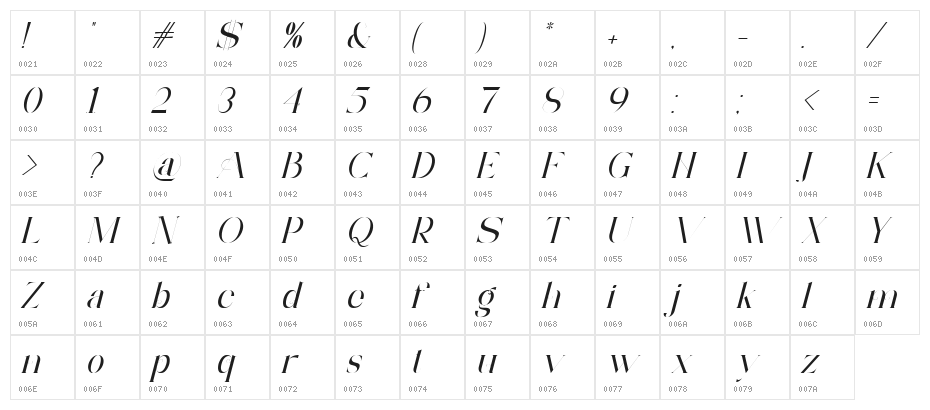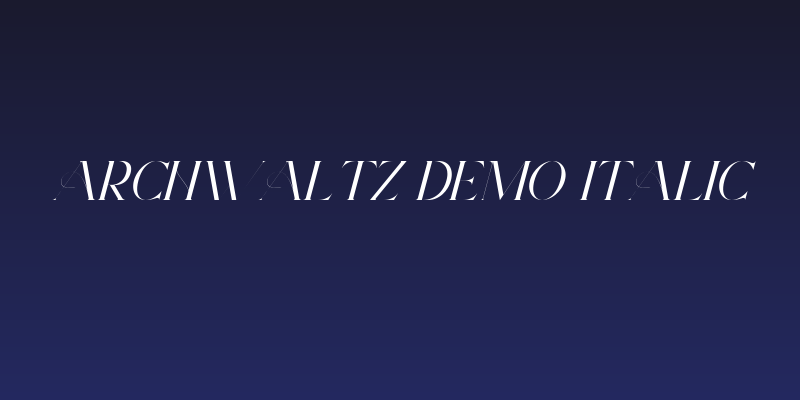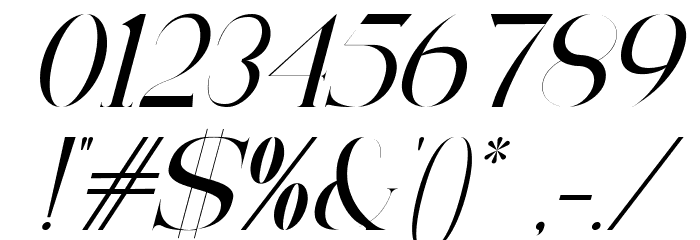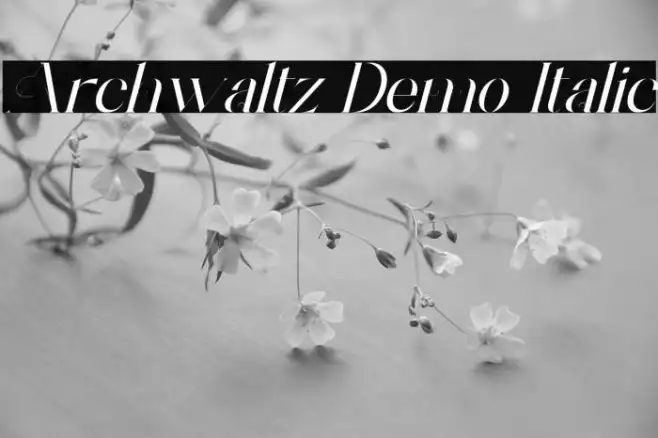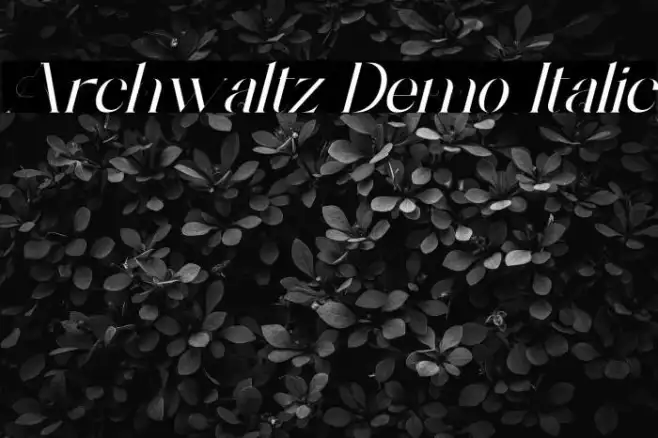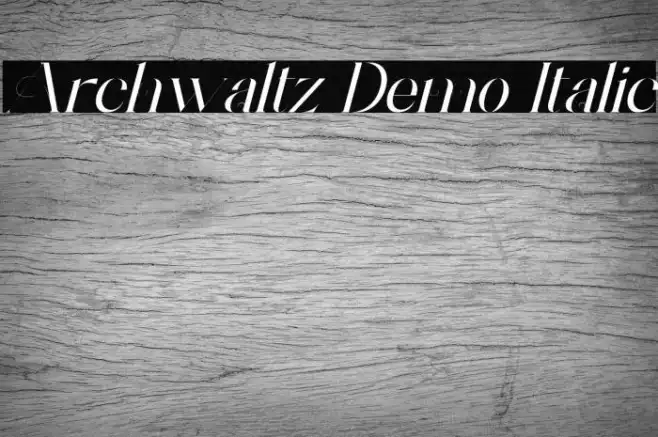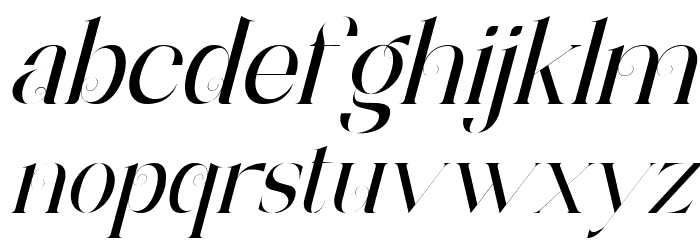
Archwaltz Demo Italic Font
✎ Thick
| Estilo general | Elegant |
| Caso de uso | Headlines, Logos, Editorial design |
| Proyectos propuestos | Ideal for luxury branding, editorial design, fashion magazines, and elegant invitations. |